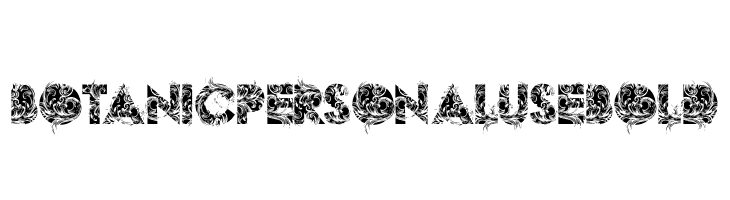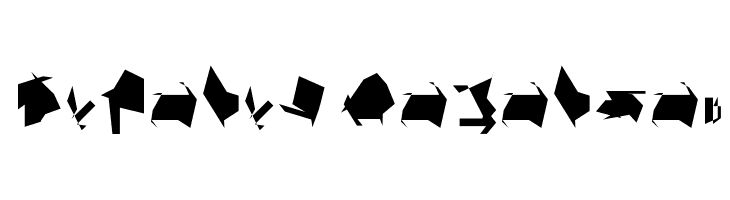
A mystical font with bold, intricate symbols and a 3D effect.
A decorative and abstract script resembling alien hieroglyphs.
A geometric and abstract font with bold, angular shapes and a futuristic style.
A bold, decorative font with intricate botanical embellishments.
A bold, decorative font with gothic and tribal influences, featuring intricate and angular designs.
A bold, dynamic brush-style font with energetic strokes and uneven edges.